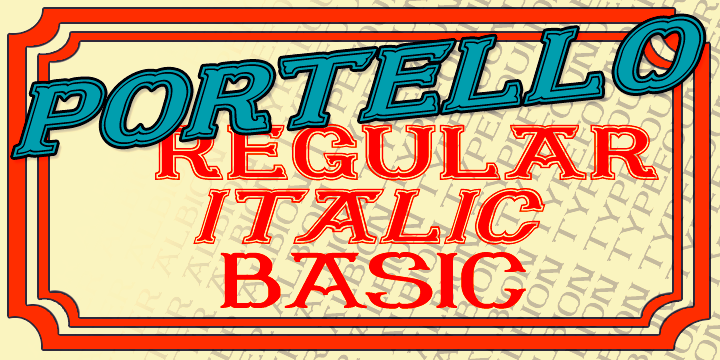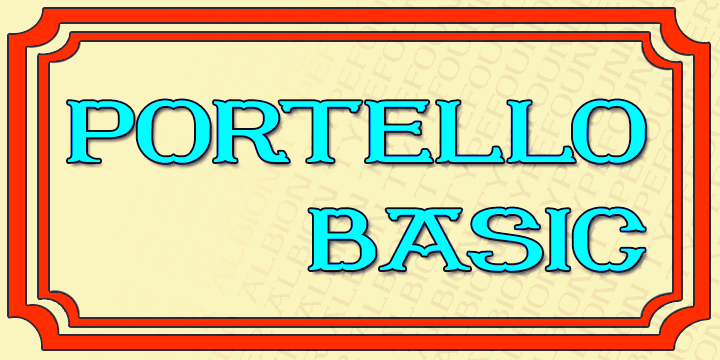
PORTELLO
Portello is a historical and art nouveau font family. This typeface has three styles and was published by Greater Albion Typefounders.
Portello is a display family in the tradition of Tuscan advertising and display faces.
It
A perpendicular regular form is offered, along with an italic form (a true italic - with purpose designed glyphs-NOT merely an oblique) and a basic form for small text - which dispenses with the family’s characteristic outlined look.
It offers the spirit of the Victorian era with ready and distinctive legibility.
Portello is a display family in the tradition of Tuscan advertising and display faces.  It’s a family of three ‘all capital’ faces.  A perpendicular regular form is offered, along with an italic form (a true italic - with purpose designed glyphs-NOT merely an oblique) and a basic form for small text - which dispenses with the family’s characteristic outlined look.  It offers the spirit of the Victorian era with ready and distinctive legibility.  It’s ideal for poster work, especially at large sizes, and for signage with a period flair.  Why not give your work the flair of colourful 19th century commercial design today?